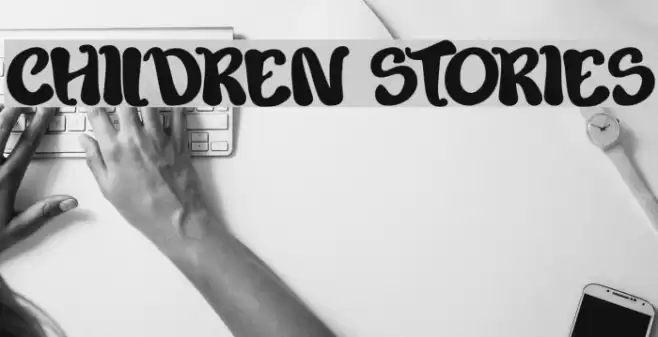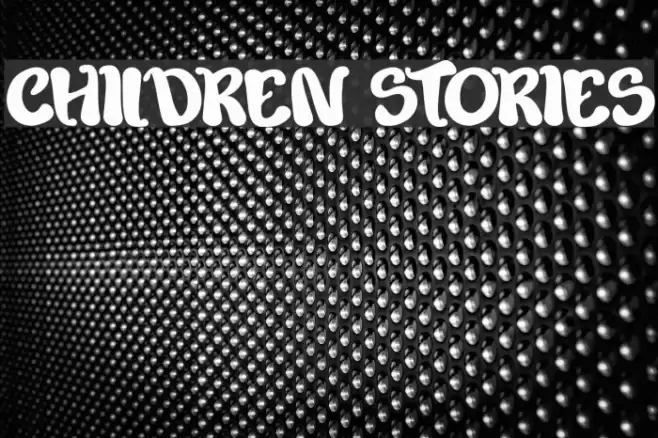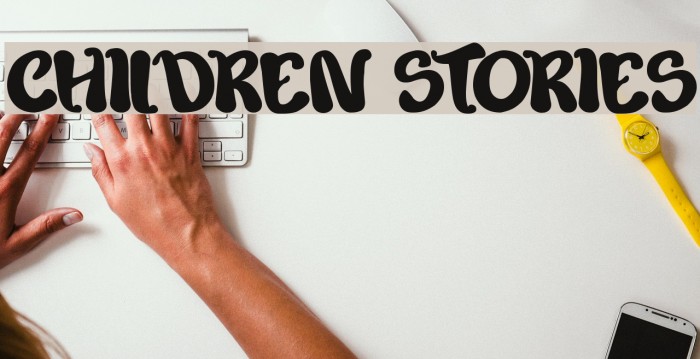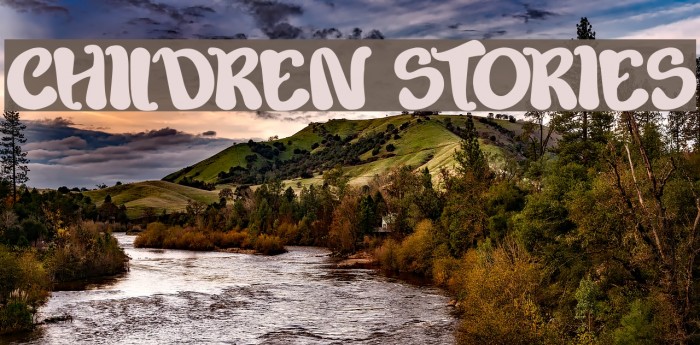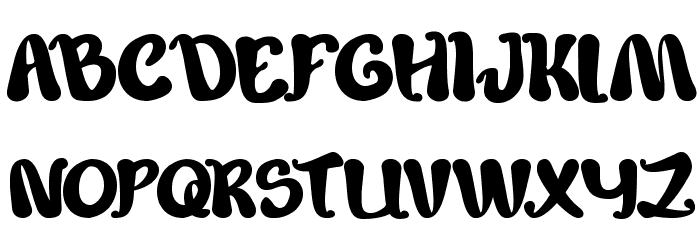
children stories Font
children stories Description
This playful and whimsical font features bold, rounded characters with a smooth, flowing style that evokes a sense of fun and creativity. The letters are designed with a consistent thickness, giving them a uniform appearance that is both eye-catching and easy to read. The font's rounded edges and soft curves contribute to its friendly and approachable look, making it ideal for projects aimed at children or those seeking a lighthearted tone. The overall design is reminiscent of hand-drawn lettering, adding a personal touch to any text. Its boldness ensures that it stands out in any context, while the smooth transitions between strokes provide a sense of movement and energy.
A playful, bold, and rounded font with a whimsical, hand-drawn style from Uncategorized fonts.
- Proposed Projects: Ideal for children's books, playful branding, toy packaging, and educational materials.
- Overall Style: Playful
- Use Case: Headlines, Logos, Children's materials